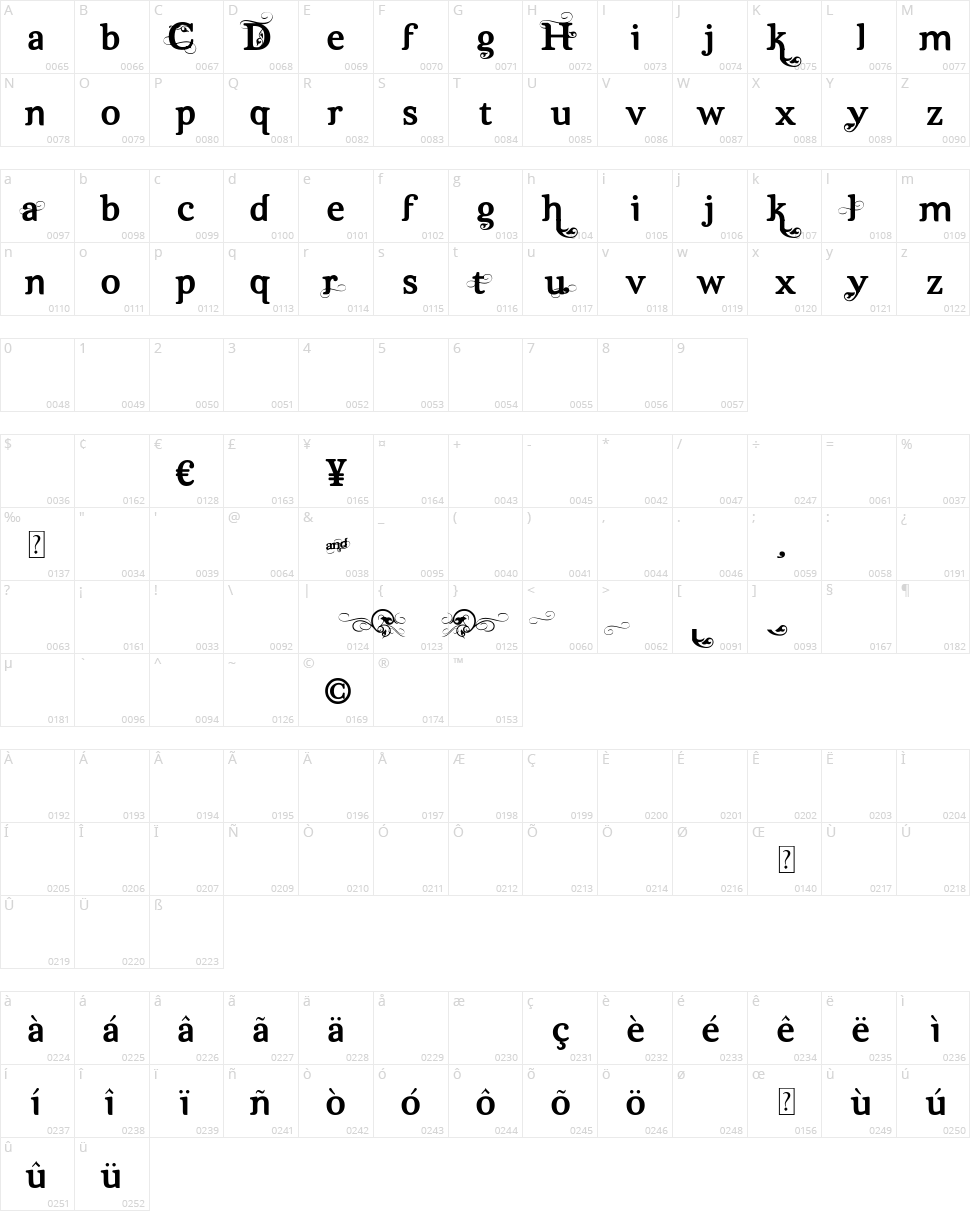
Dutch & Harley
When using Dutch & Harley alt. you can customize your words the way you want!
Just use the "colon, comma,and parenthesis/brackets" to alter the ends of letters.
Use the "<,>" keys to add swirl effects.